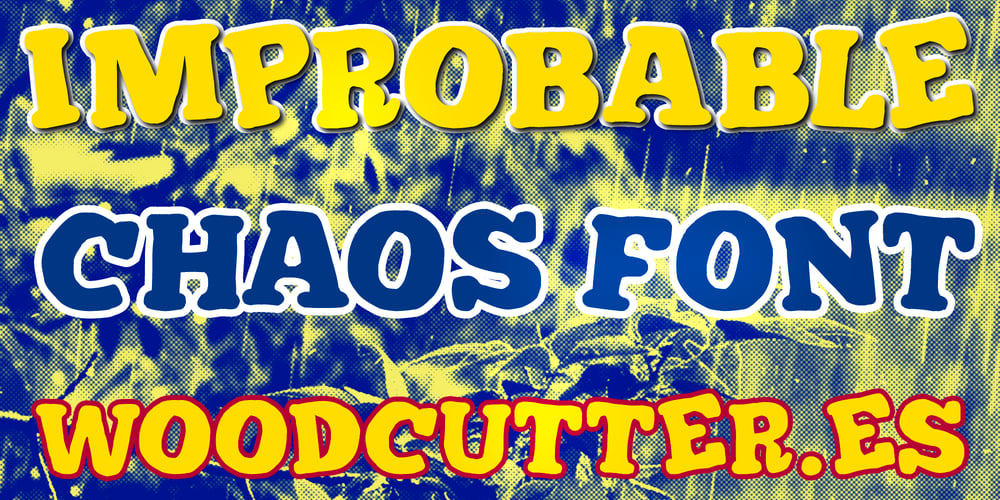
Improbable
Improbable font
Improbable Font Family was designed by Jordi Manero and published by Woodcutter. Improbable contains 1 styles and family package options. “Improbable” is an uppercase typeface with accents that stands out for its chaotic and disordered appearance. Each letter seems to have been randomly placed, adopting different positions that give it a sense of movement and dynamism. This unstructured style makes “Improbable” perfect for creative projects aiming to break away from uniformity and add a touch of visual rebellion or extravagance. It’s ideal for titles, posters, or designs that need to grab attention in a striking and original way.